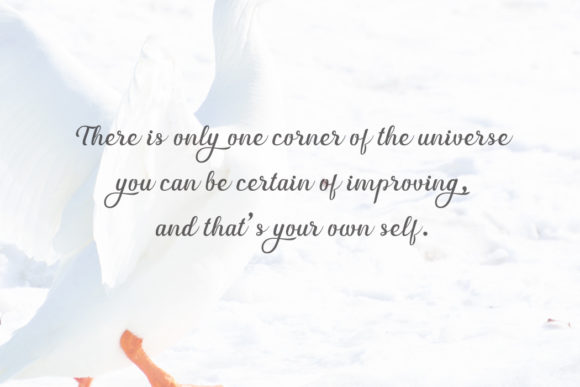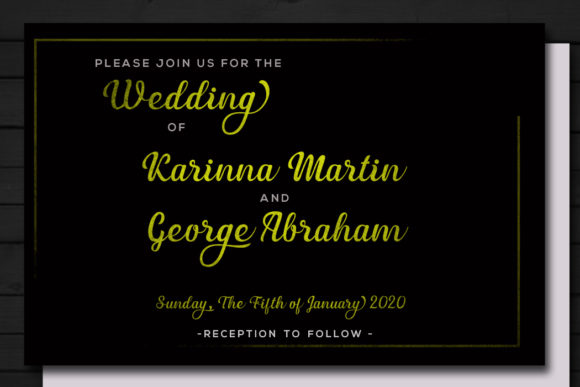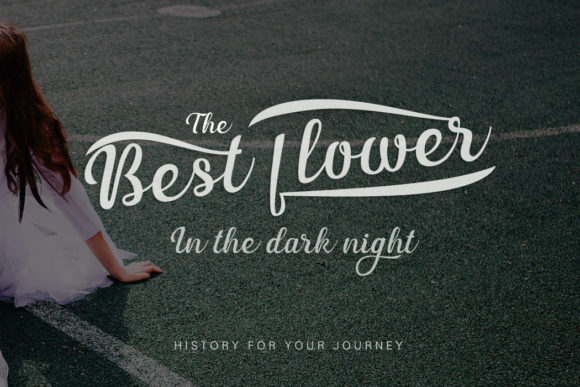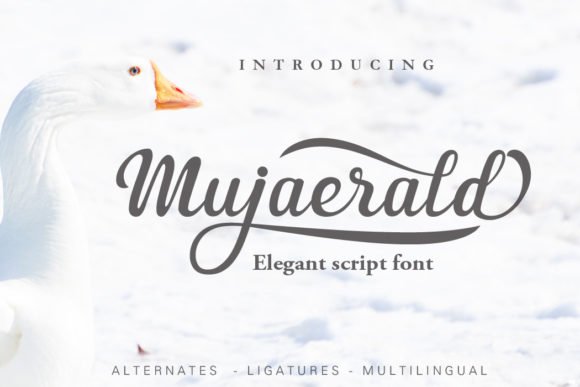
Introduction to Mujaerald Font
The Mujaerald is a nice script font with a clear, simple and elegant look.
The available alternates and ligatures offer a number of different characters that give your typographic an unique look It’s perfect to apply in various formal forms like invitations, labels, menus, logos, fashion designs, make up, stationery, letterpress, romantic novels, magazines, books, greeting / wedding cards, packaging, labels and more.